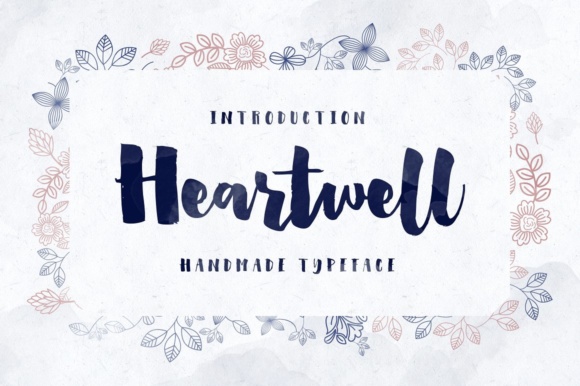
Introducing Heartwell Font: Elevate Your Designs with Modern Calligraphy
Are you tired of using the same old fonts in your designs? Do you want to add a touch of elegance and sophistication to your projects? Look no further than Heartwell Font, a stunning modern calligraphy font that is sure to take your designs to the next level. Inspired by the nuances that make hand-lettering beautiful, Heartwell Font is the perfect choice for designers and crafters who want to add a personal touch to their work.
The Beauty of Hand-Lettering
Hand-lettering is an art form that requires skill, patience, and practice. The subtle variations in line width, the flowing connections between letters, and the expressive flourishes all come together to create a unique and beautiful piece of art. Heartwell Font captures the essence of hand-lettering, with its dancing baselines and alternating fat and thin strokes. This font is designed to give your designs a relaxed and vibrant feel, perfect for creating eye-catching headlines, titles, and quotes.
Key Features of Heartwell Font
- Modern Calligraphy Style: Heartwell Font is a gorgeous modern calligraphy font that is perfect for designs that require a touch of elegance and sophistication.
- Dancing Baselines: The font features dancing baselines, which give your designs a relaxed and vibrant feel.
- Alternating Fat and Thin Strokes: The alternating fat and thin strokes create a sense of harmony and balance, making your designs look fully realized.
- Hand-Lettered Feel: Heartwell Font has a hand-lettered feel that is perfect for designs that require a personal touch.
Uses for Heartwell Font
Heartwell Font is a versatile font that can be used in a variety of design projects, including:
- Branding and Packaging: Use Heartwell Font to create eye-catching logos, labels, and packaging that stands out from the crowd.
- Stationery and Invitations: Add a touch of elegance to your stationery and invitations with Heartwell Font.
- Social Media Graphics: Use Heartwell Font to create stunning social media graphics that grab attention.
- Web Design: Heartwell Font can be used to create beautiful headings and titles for your website.
Why Choose Heartwell Font?
There are many fonts available that claim to be modern calligraphy fonts, but Heartwell Font stands out from the rest. Here are just a few reasons why:
- Unique and Elegant: Heartwell Font is a unique and elegant font that will elevate your designs and make them stand out.
- High-Quality Design: The font is designed with high-quality craftsmanship, ensuring that it looks great in any design.
- Easy to Read: Despite its elegant and cursive nature, Heartwell Font is easy to read, making it perfect for body text and headlines.
Tips for Using Heartwell Font
Here are a few tips for using Heartwell Font in your designs:
- Use it Sparingly: Heartwell Font is a statement font, so use it sparingly to create emphasis and add visual interest.
- Pair it with a Sans-Serif Font: Pair Heartwell Font with a sans-serif font to create a beautiful contrast and add visual interest.
- Experiment with Colors: Heartwell Font looks great in a variety of colors, so don’t be afraid to experiment and find the perfect color for your design.
Heartwell Font is a stunning modern calligraphy font that is sure to elevate your designs and take them to the next level. With its dancing baselines, alternating fat and thin strokes, and hand-lettered feel, this font is perfect for designers and crafters who want to add a touch of elegance and sophistication to their work. Whether you’re creating branding and packaging, stationery and invitations, or social media graphics, Heartwell Font is the perfect choice.